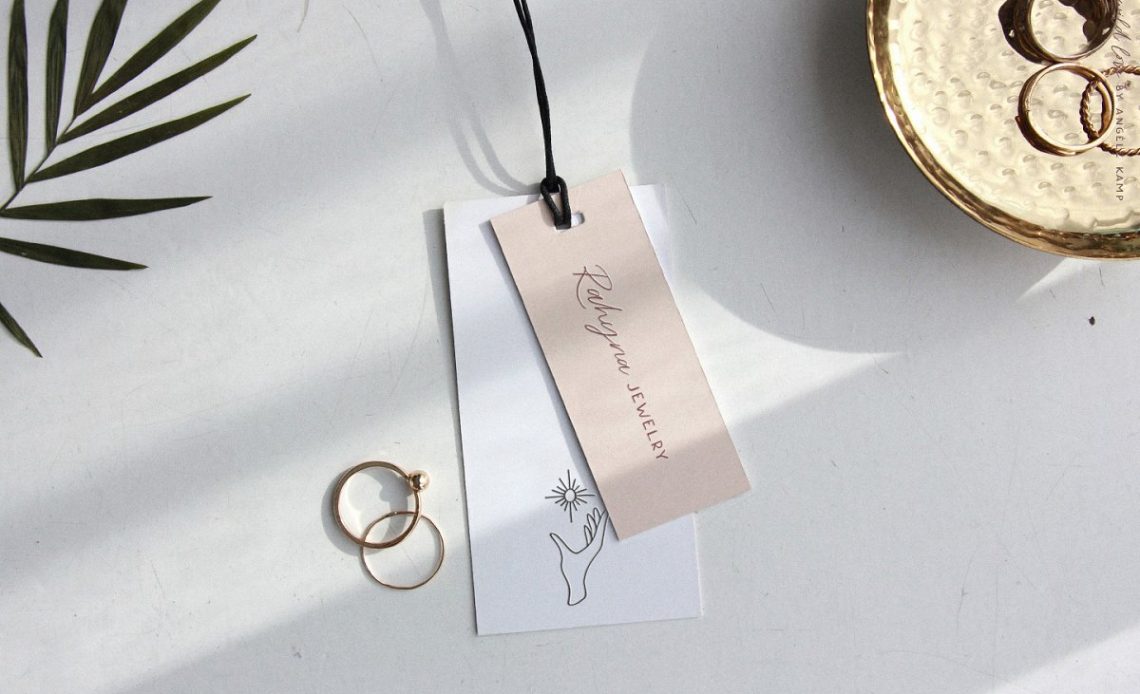
Looking for a script font that will take your designs to the next level? Look no further than Wild Love, a stunning collection of script fonts, symbols, logos, and textures designed by Angele Kamp. Wild Love includes everything you could possibly dream of in a font collection.
With two perfectly-paired script and sans-serif fonts, 67 ligatures, and 52 alternate start and end swashes, Wild Love Script will give your designs that gorgeous hand-lettered look you've been searching for. Pair it with Wild Love Sans for a perfectly-balanced design.
But that's not all. Wild Love Symbols includes 62 hand-drawn illustrations that can be used in all of your lovely creations. And with the premade logos included in this collection, you can create stunning designs for yourself or your clients in no time at all. Plus, as an extra bonus, you'll receive five textures to give your designs that finished look.
Angele Kamp, the creative mind behind Wild Love, is inspired by nature, florals, watercolors, illustrations, and hand-lettering. Her designs and fonts have been used by products and designers all over the world.